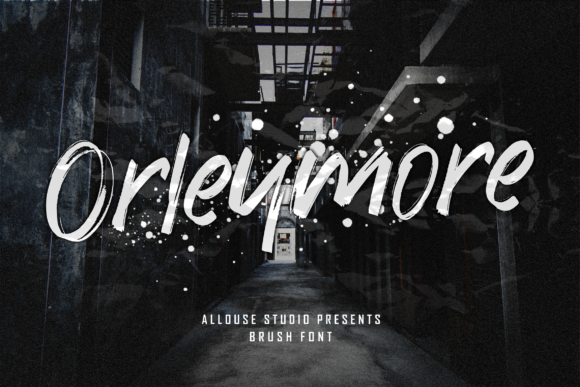
Unleash your creativity and leave an indelible mark with Orleymore Font, the ultimate tool for lettering tattoos. Embark on a journey of self-expression and transform your vision into stunning, unique art. With its captivating brush-style strokes, Orleymore captures the essence of hand-lettering, evoking a sense of authenticity and artistic flair.
Immerse yourself in the world of personalization and create designs that resonate with your individuality. Whether you're a seasoned tattoo artist or simply seeking to explore your artistic side, Orleymore Font is your perfect companion. Its carefully crafted glyphs flow effortlessly, allowing you to weave intricate patterns and elegant script that will undoubtedly turn heads.
Step into the realm of lettering excellence and let Orleymore elevate your designs to new heights. Experience the joy of seamlessly merging art and expression as you bring your creative visions to life. With its versatility, Orleymore Font adapts effortlessly to a myriad of projects, including product packaging, branding, watermarks, and the vibrant tapestry of social media.